Building a memorable brand doesn’t always require a large design budget. For startups, small businesses, e-commerce entrepreneurs, and creative professionals, high-quality free fonts can provide a strong foundation for logos, packaging, social media content, advertisements, product labels, and brand identity systems.
The right font helps communicate personality, establish credibility, and improve brand recognition. Whether you’re launching a fashion brand, food business, gaming company, beauty product, handmade craft store, or digital service, typography plays a major role in how customers perceive your business.
In this guide, we’ll explore seven excellent free fonts that can be used across multiple industries, helping you create professional and eye-catching branding without increasing your startup costs.
Initial Suggestion
Before downloading any font, take a moment to understand your brand identity.
Choose Fonts Based on Brand Personality
Different industries require different visual approaches.
Examples:
- Luxury brands often use elegant fonts.
- Children’s products benefit from playful typography.
- Gaming brands work well with futuristic styles.
- Food businesses often use expressive and friendly fonts.
Think Beyond the Logo
A font should work across:
- Logos
- Packaging
- Product labels
- Social media graphics
- Website headers
- Marketing campaigns
- Printed materials
Prioritize Versatility
The best free fonts remain effective in both large headlines and smaller branding elements.
Maintain Brand Consistency
Using the same typography system across every platform helps strengthen brand recognition and professionalism.
1. Love Fairy
Love Fairy is a charming decorative font designed to bring warmth, sweetness, and personality into a design. Its whimsical appearance makes it ideal for brands that want to create an emotional connection with their audience. Whether used for product packaging, boutique branding, handmade products, greeting cards, or social media promotions, this font delivers a friendly and memorable visual experience while remaining highly distinctive.
- Cute and memorable appearance
- Strong emotional appeal
- Excellent for creative branding
- Works well in social media designs
- Gift shops
- Handmade products
- Valentine’s promotions
- Boutique brands
- Greeting card businesses
2. Colide Gothic Font
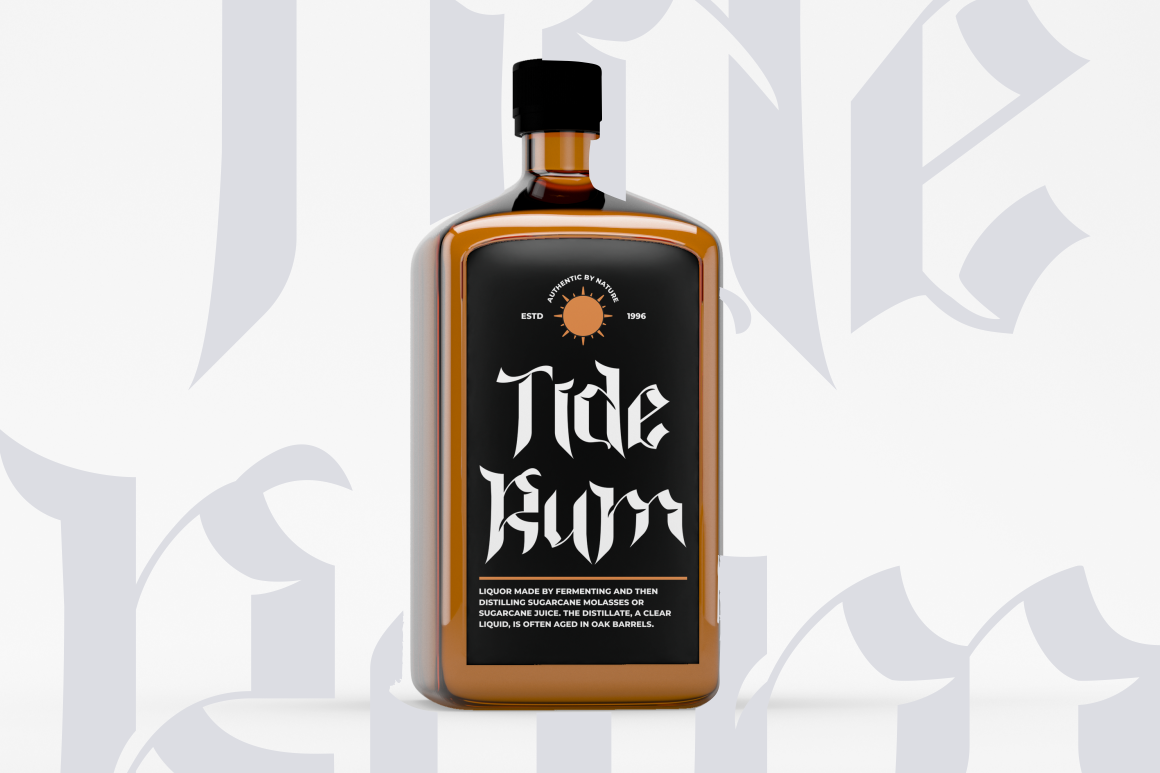
Colide Gothic offers a bold gothic-inspired appearance that instantly creates a strong visual impact. The font combines dramatic styling with excellent readability, making it suitable for brands seeking a powerful and distinctive identity. It can help businesses stand apart in crowded markets by introducing a unique and unforgettable visual character.
- Strong visual presence
- Unique gothic personality
- Highly recognizable style
- Great headline performance
- Clothing brands
- Music merchandise
- Alternative fashion
- Gaming projects
- Event promotions
3. Melting Dessert Display Font
Melting Dessert Display Font features playful curves and fun character shapes that create an energetic and inviting atmosphere. The font naturally attracts attention and helps products appear more approachable and enjoyable. This makes it especially effective for businesses targeting younger audiences or customers looking for fun and memorable experiences.
- Playful and cheerful style
- Excellent product visibility
- Family-friendly appearance
- Great packaging potential
- Food packaging
- Snack brands
- Dessert businesses
- Kids products
- Promotional graphics
4. Grader Shave Modern Futuristic Font
Grader Shave combines modern geometric styling with futuristic design influences. Its clean and innovative appearance makes it highly suitable for technology-driven brands, digital products, and modern marketing campaigns. The font projects innovation and professionalism while maintaining strong visual appeal.
- Futuristic visual identity
- Clean geometric structure
- Professional appearance
- Excellent digital branding potential
- Technology startups
- Gaming brands
- Digital products
- Automotive branding
- Tech marketing campaigns
5. Holian
Holian presents a stylish and contemporary look that balances creativity with professionalism. Its versatile design allows it to adapt across multiple industries while maintaining a unique personality. This flexibility makes it an excellent option for entrepreneurs who want one font that can support multiple branding applications.
By selecting fonts strategically and applying them consistently across logos, packaging, websites, and marketing materials, entrepreneurs can build stronger, more memorable brands while maximizing the value offered through Freebies License resources.